Z loops mark
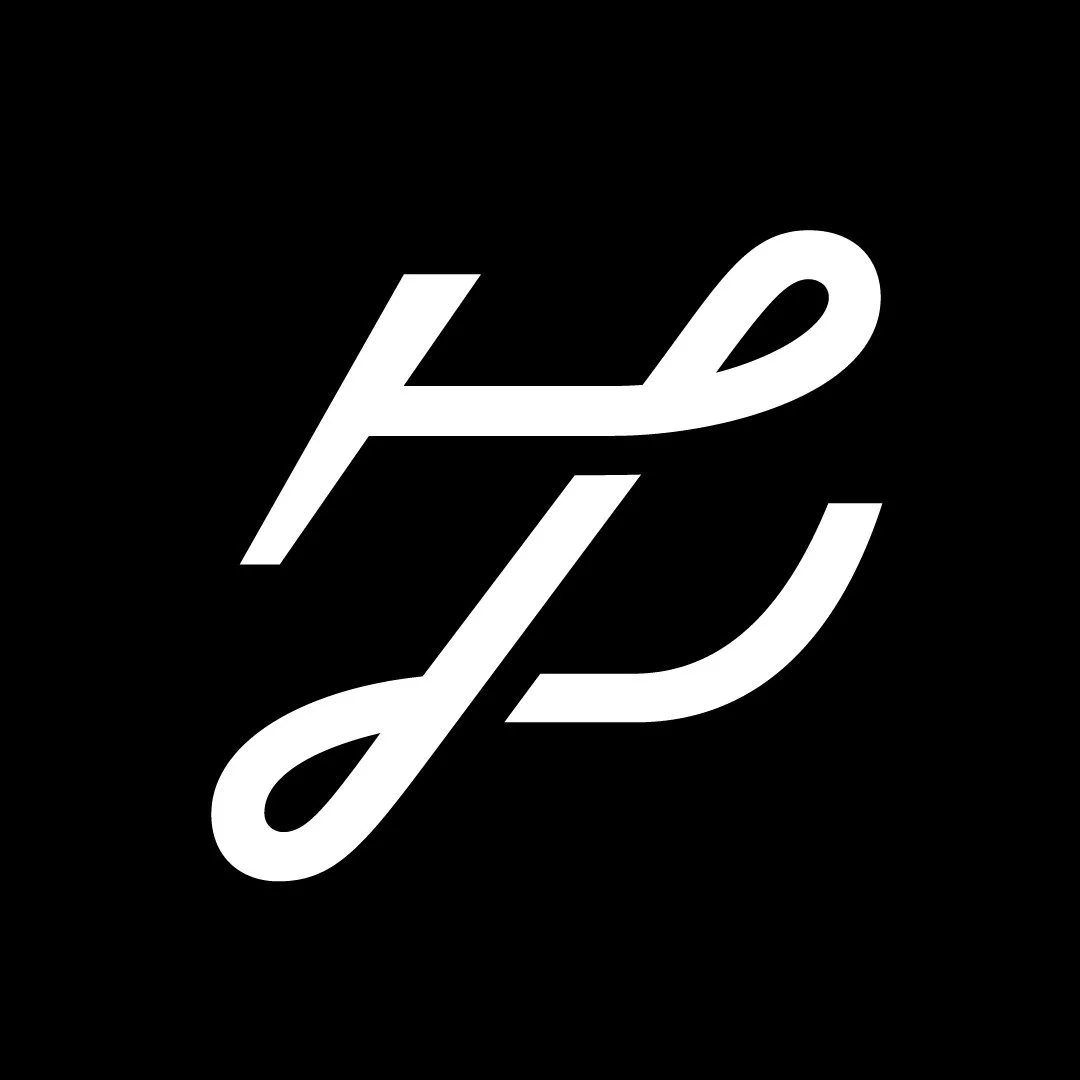
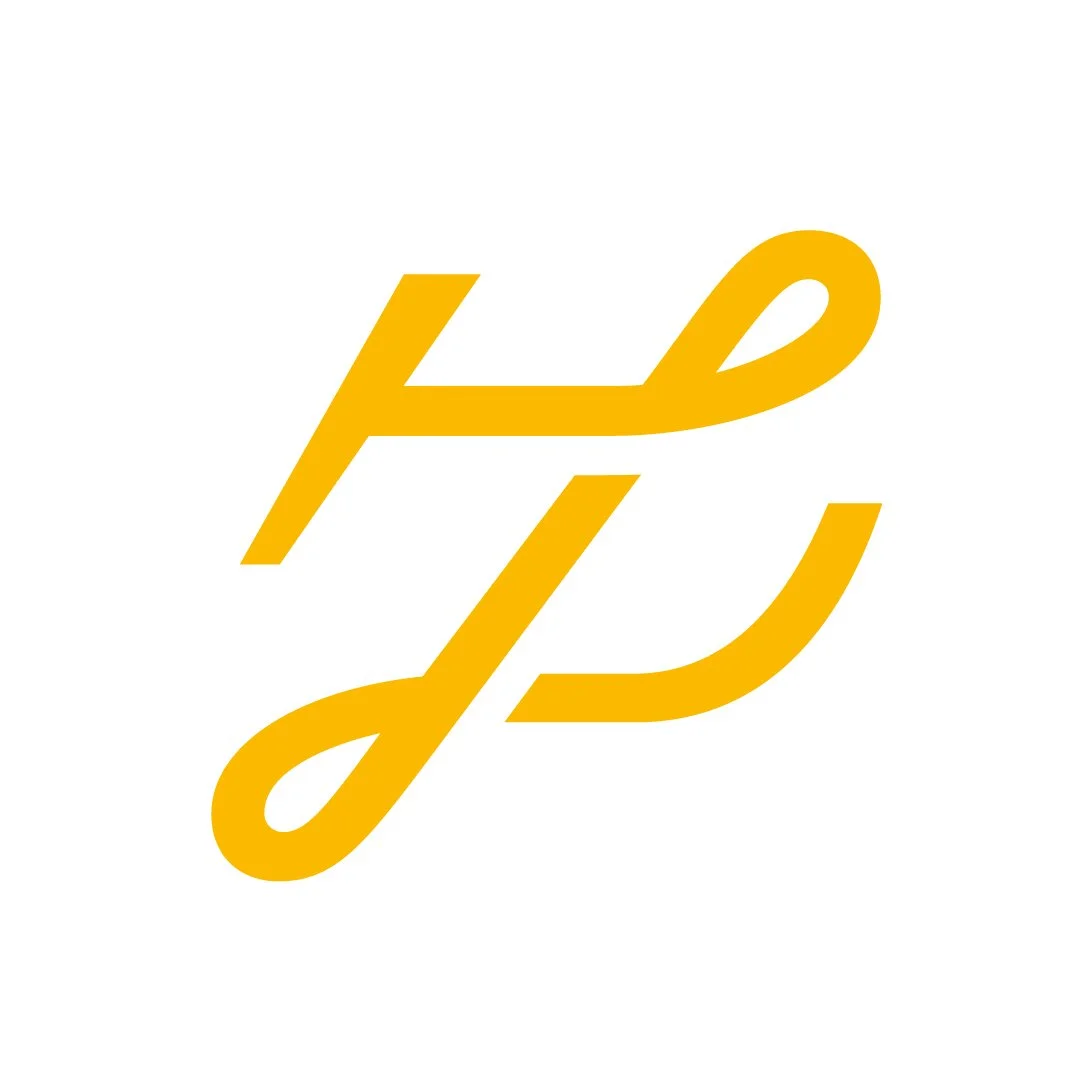
Z loops mark
A flowing letter Z with a monoline structure and a twist at each intersection. Has a serif at the start and swash at the bottom end. Keywords: road, way, movement, street, line, path.